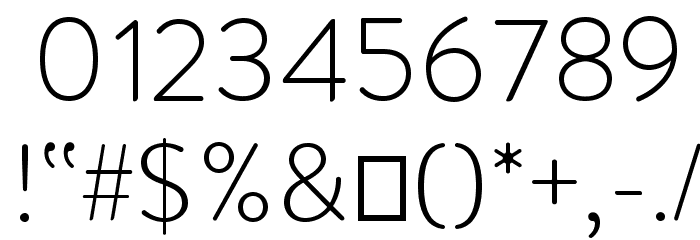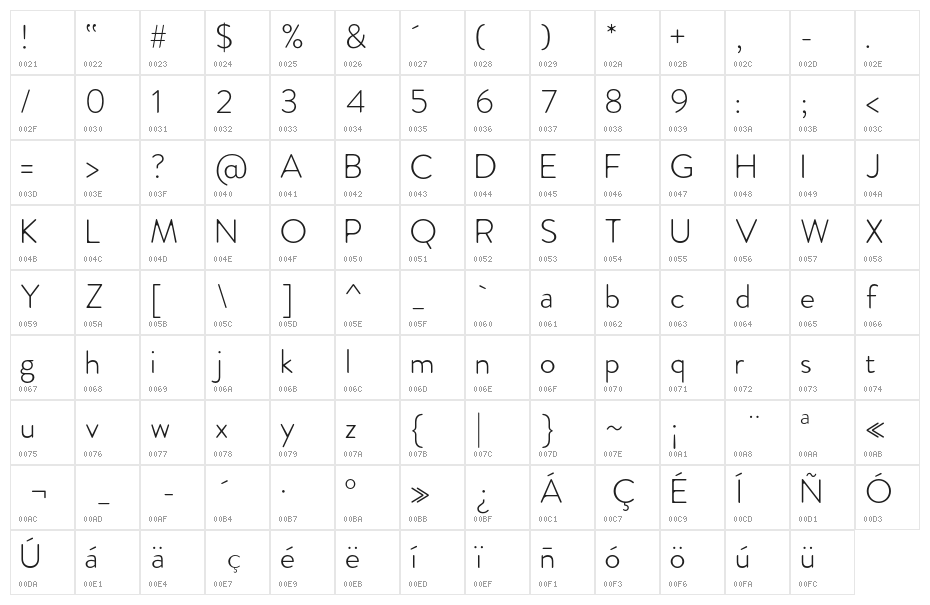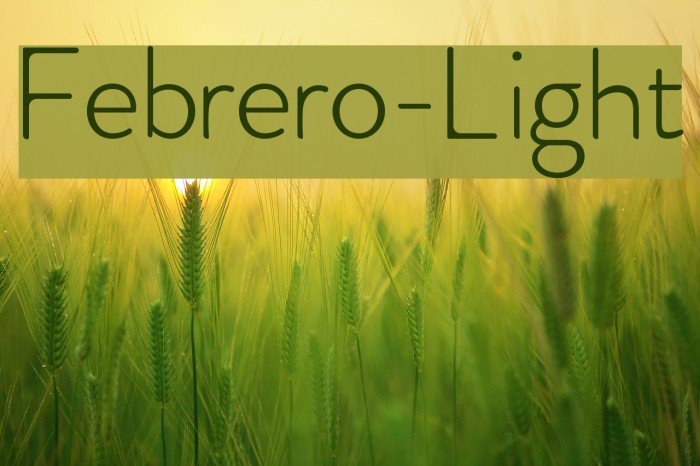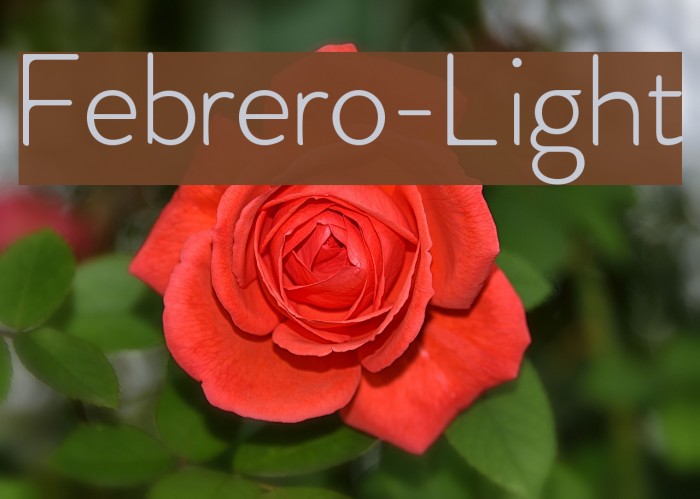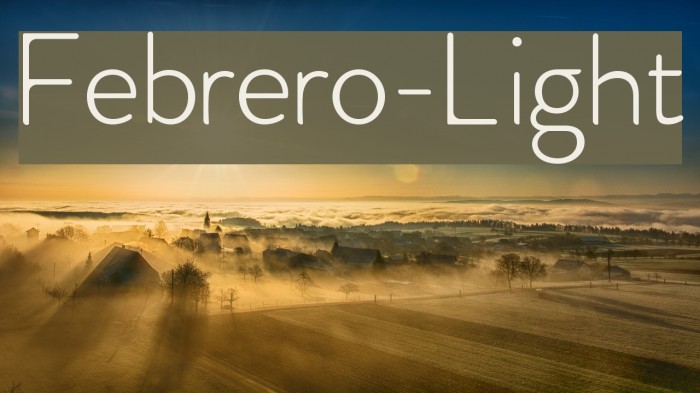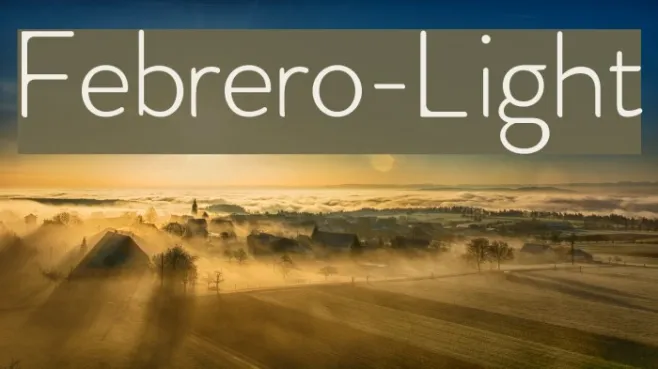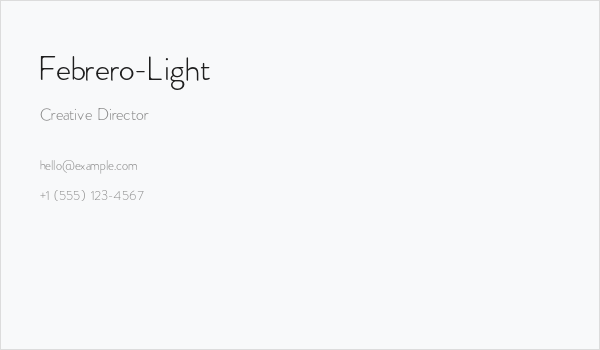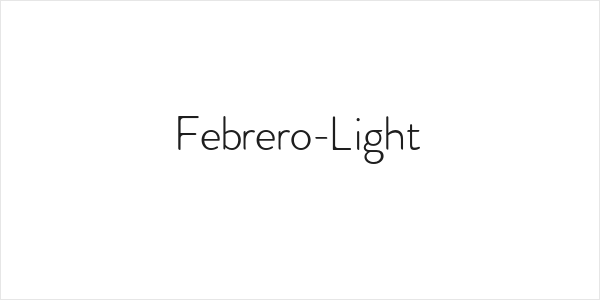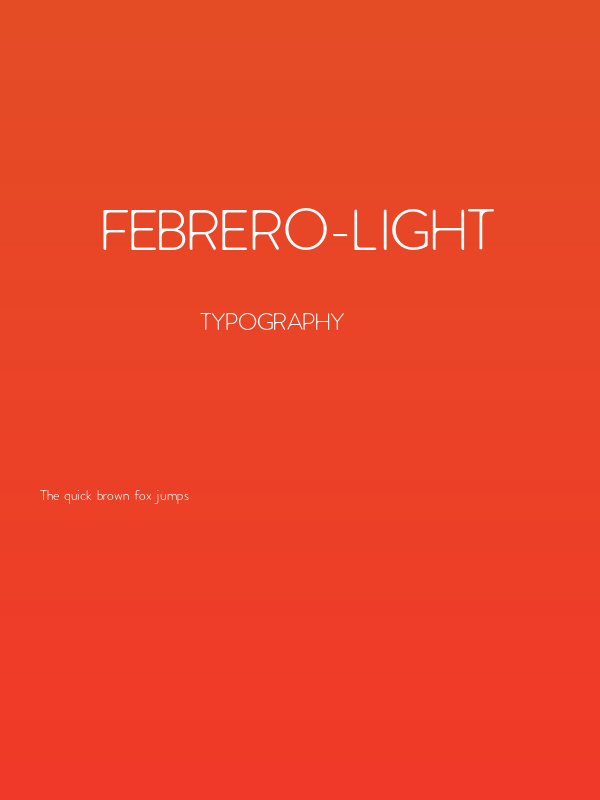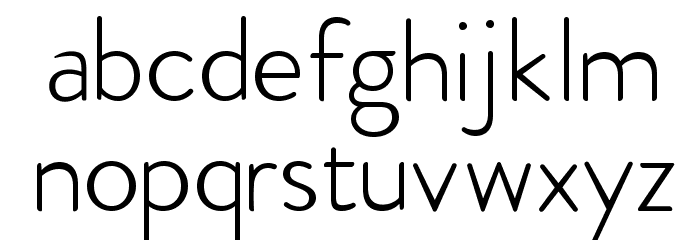
Febrero-Light Font
Febrero-Light Description
This font features a clean and modern sans-serif style with a light weight, offering a sleek and minimalist appearance. The characters are evenly spaced with a normal width, providing excellent readability. The design is characterized by smooth curves and a uniform stroke width, giving it a contemporary and elegant look. The font includes a full set of uppercase and lowercase letters, numerals, and a variety of special characters, making it versatile for various design needs. Its simplicity and clarity make it suitable for both digital and print media.
| Proposed Projects | Ideal for branding, web design, editorial layouts, and user interfaces. |